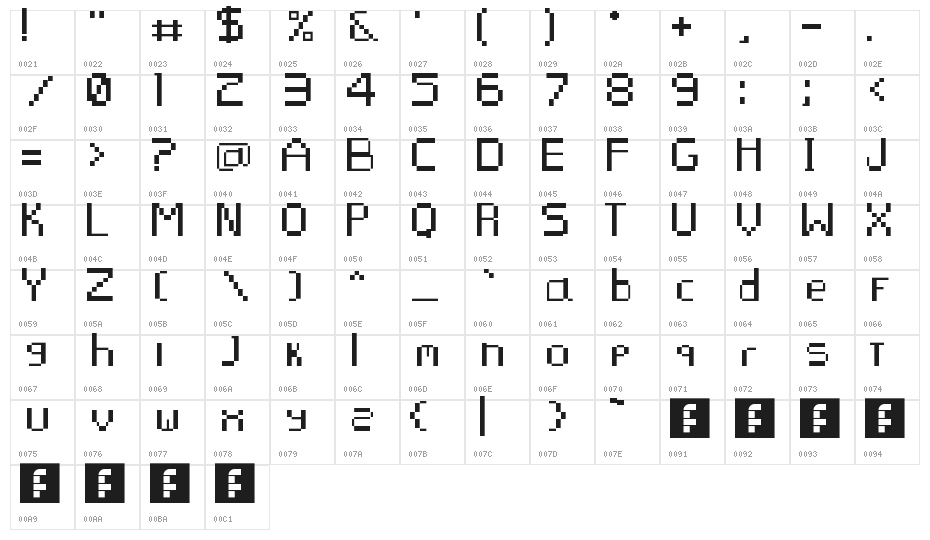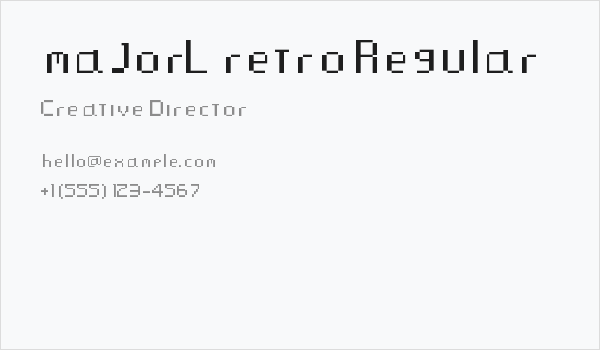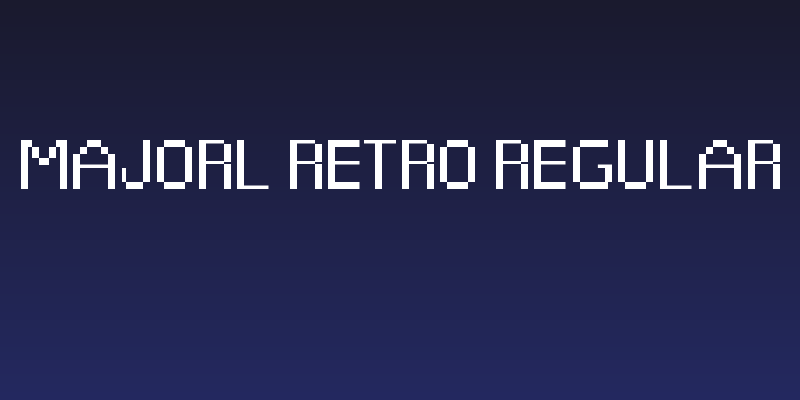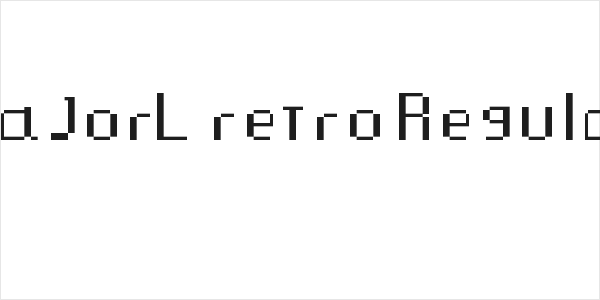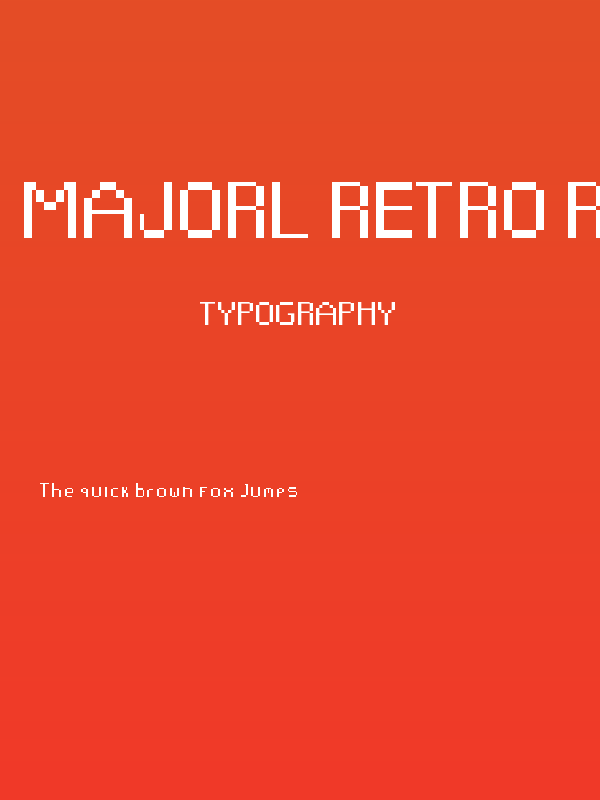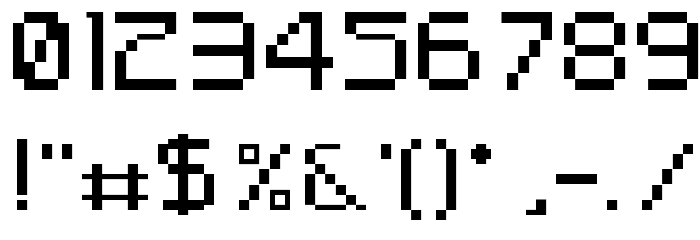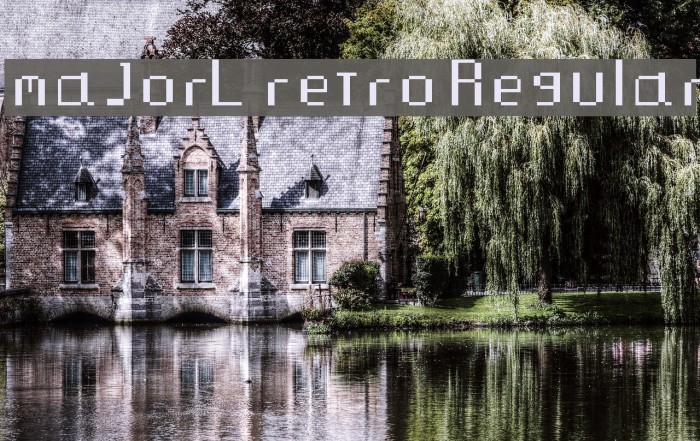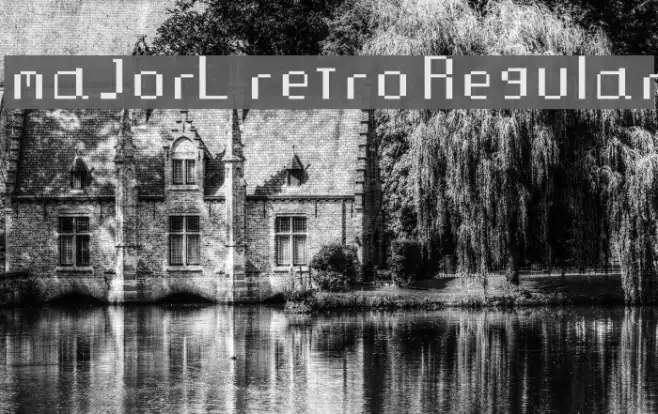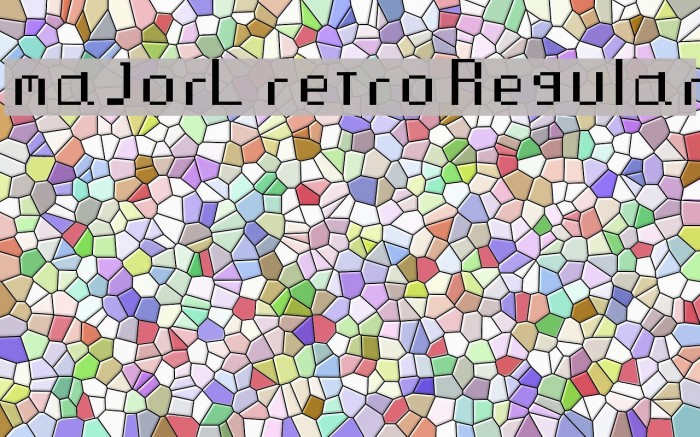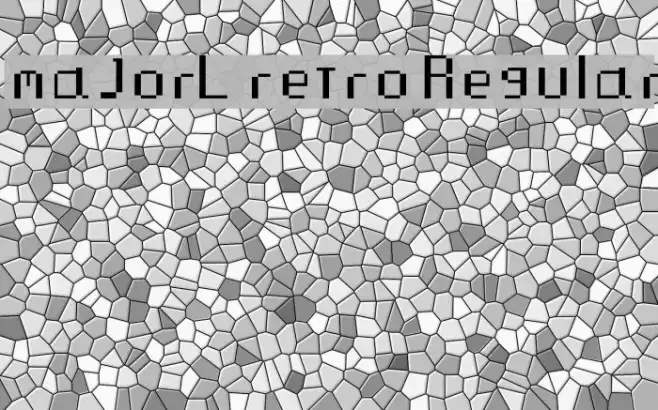
majorL retro Regular Font
majorL retro Regular Description
This font features a distinct retro aesthetic, reminiscent of early digital displays and pixel art. Each character is composed of blocky, square shapes that give it a pixelated appearance, evoking a sense of nostalgia for vintage computing and gaming. The uppercase and lowercase letters maintain a consistent geometric style, with uniform stroke widths and sharp angles. Numbers and special characters follow the same design principles, ensuring a cohesive look across all glyphs. The font's simplicity and clarity make it highly legible, even at smaller sizes, while its unique style adds a playful, tech-inspired touch to any project.
| Overall Style | Retro |
| Use Case | Headlines, Logos, Digital Art |
| Proposed Projects | Ideal for retro-themed designs, video game graphics, digital art projects, and tech-inspired branding. |